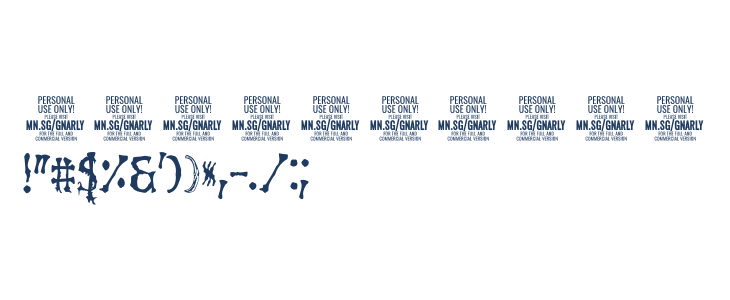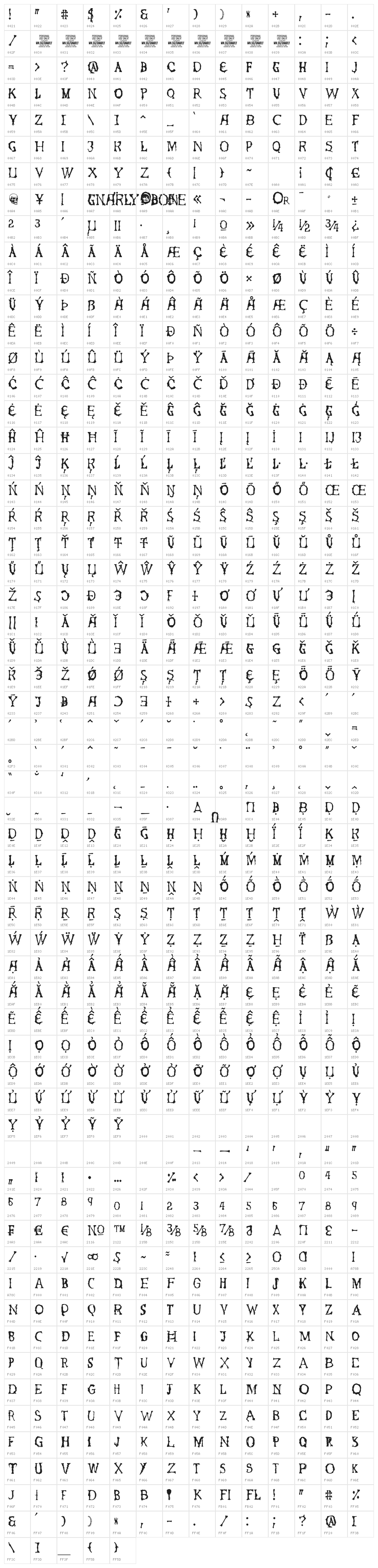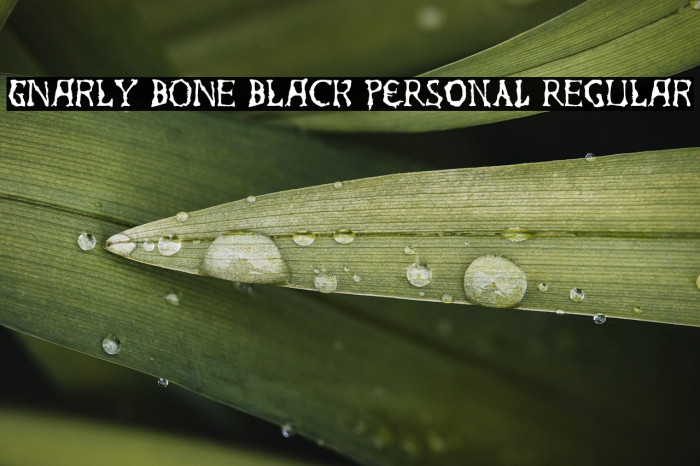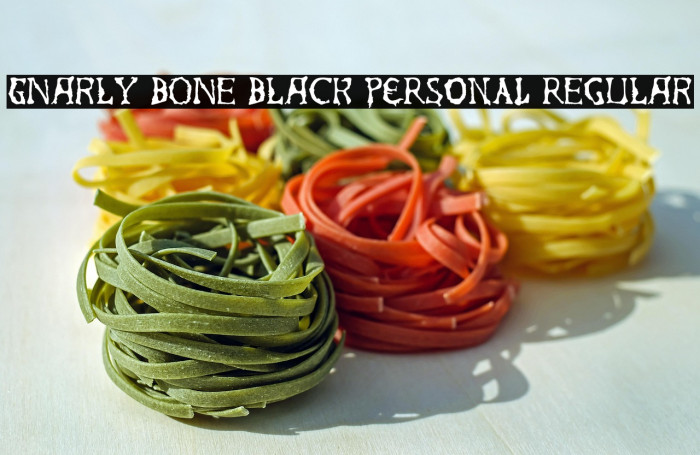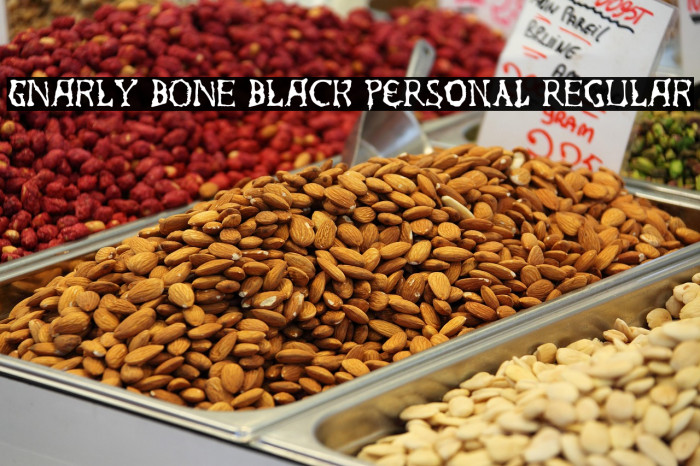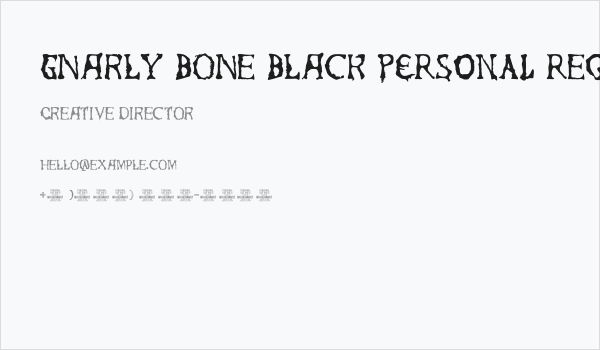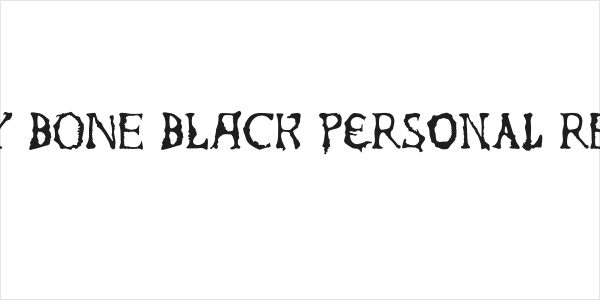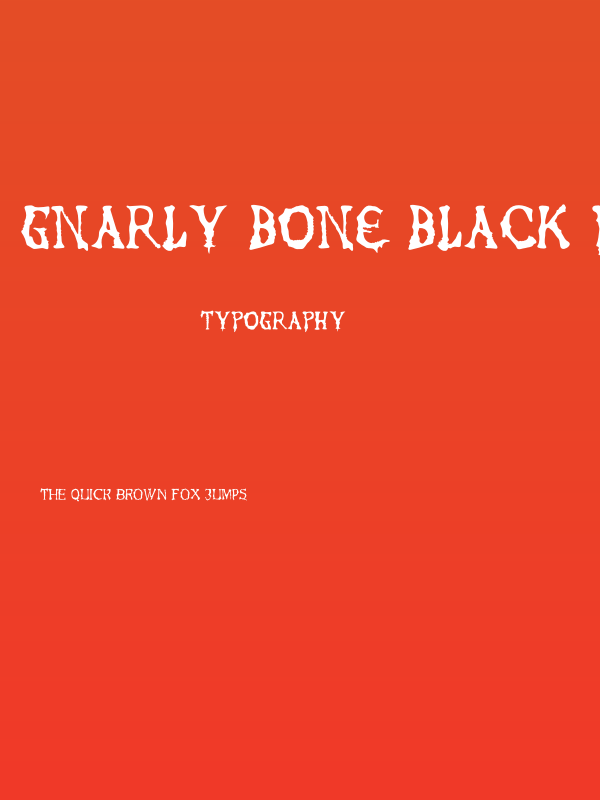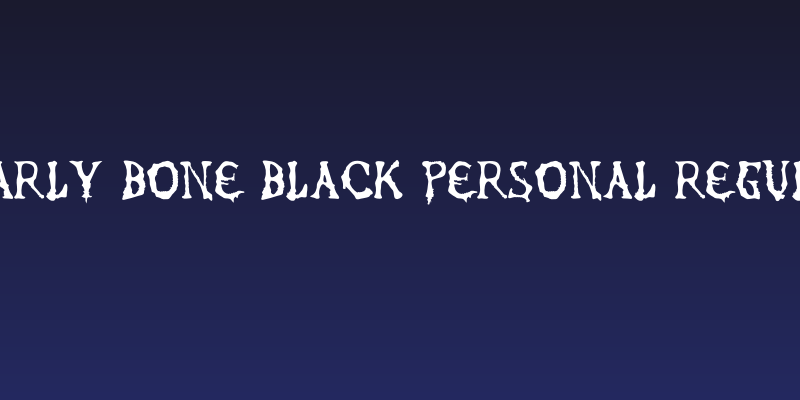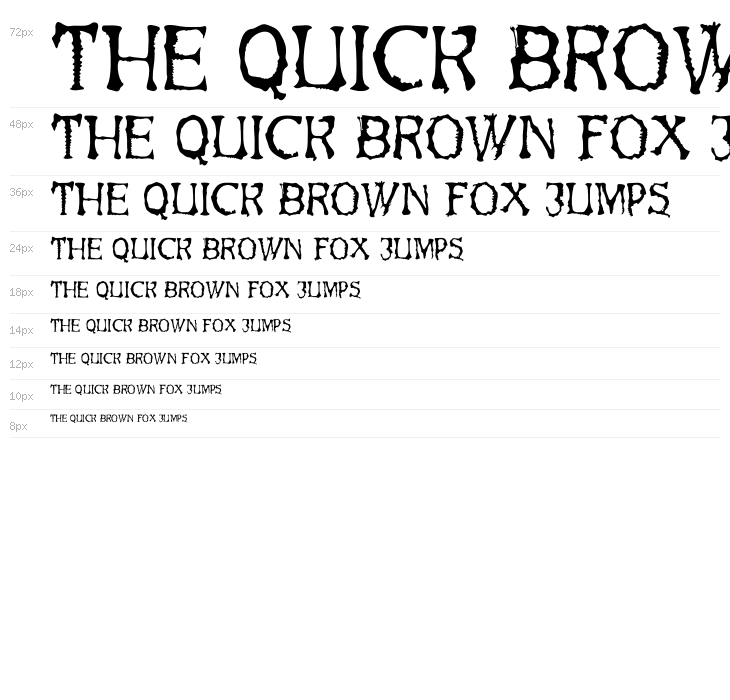
Gnarly Bone Black PERSONAL Regular Font
Gnarly Bone Black PERSONAL Regular Description
This font features a bold and jagged design, reminiscent of twisted branches or bones, giving it a distinctly eerie and gothic appearance. The characters are irregular and rough-edged, creating a sense of movement and chaos. The uppercase and lowercase letters maintain a consistent style, with sharp points and uneven lines that suggest a hand-drawn quality. The numerals and special characters follow the same aesthetic, ensuring a cohesive look across all glyphs. This font is ideal for projects that require a dramatic and unsettling visual impact, such as horror-themed designs or Halloween decorations.
| Overall Style | Gothic, Eerie, Dramatic |
| Use Case | Headlines, Posters, Themed Events |
| Proposed Projects | Perfect for horror-themed designs, Halloween decorations, and any project needing a dramatic, unsettling impact. |